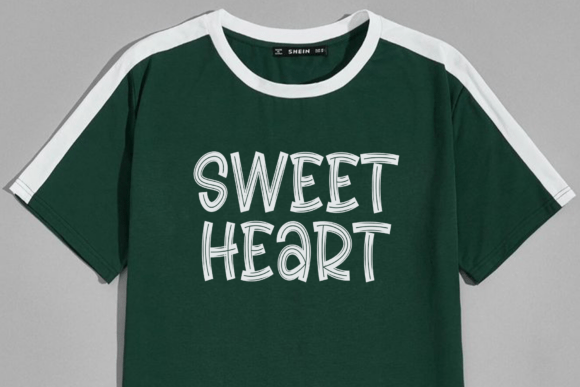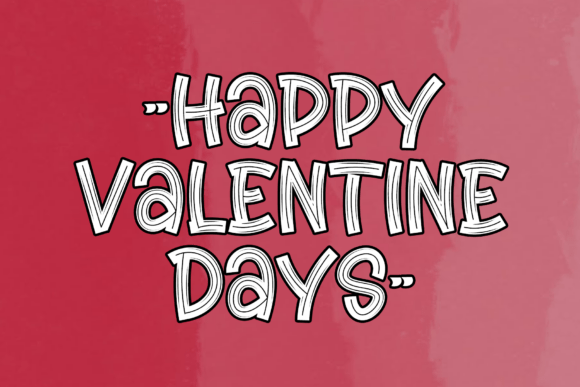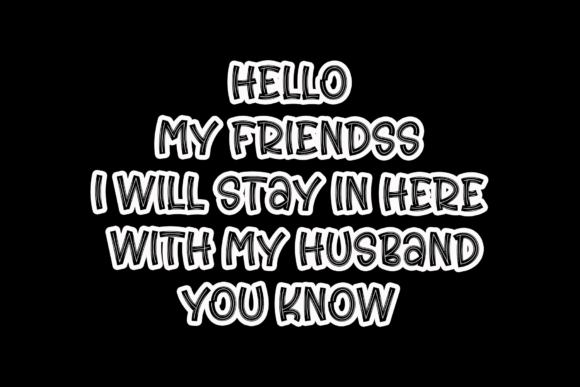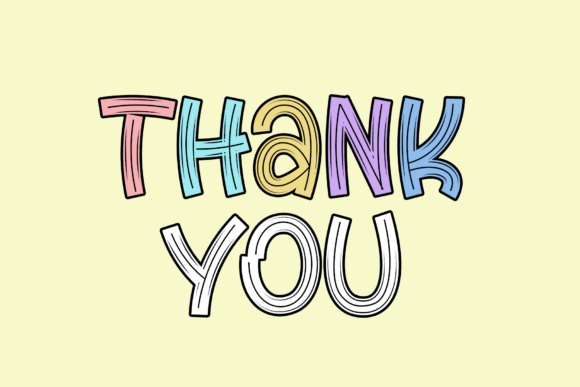
Introduction to Round World Font
Round World is a bold and friendly display font designed with a playful “modern simple” aesthetic.
The typeface features thick, rounded letterforms characterized by a unique, multiline or “inline” texture that adds immediate visual depth and a hand-drawn feel Its soft, bubbly silhouette and large character proportions make it highly impactful while maintaining an approachable and organized visual flow.
Key Features of Round World Font
Why Choose Round World Font?